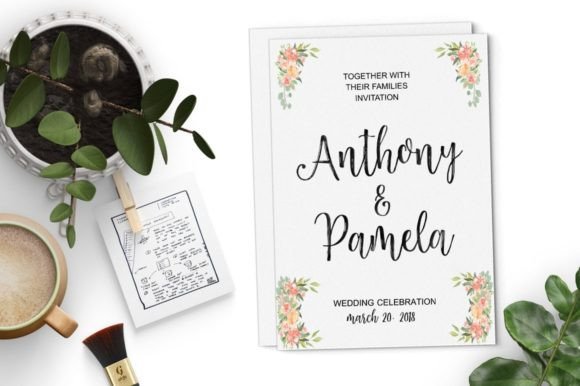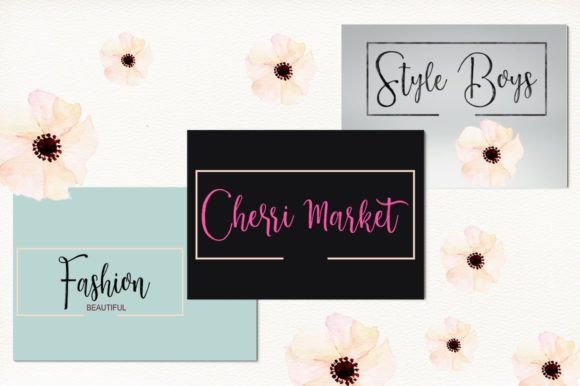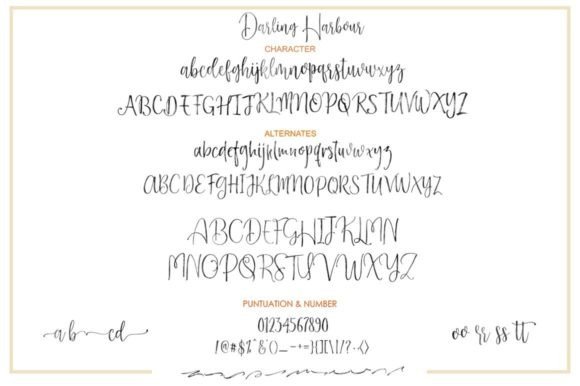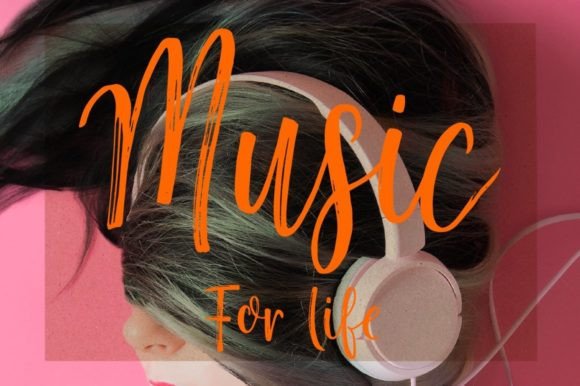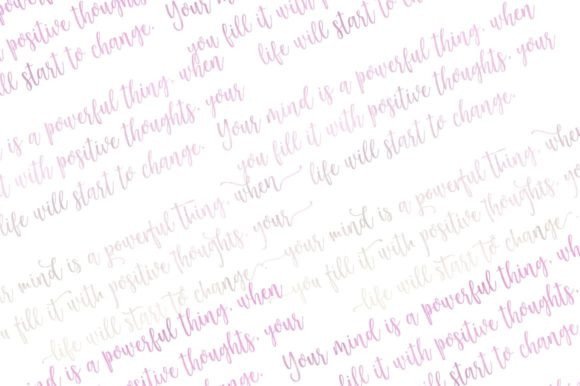
Introducing Darling Harbour Font: The Perfect Handwritten Brush Font for Your Designs
Are you looking for a stylish and cool handwritten brush font to elevate your designs? Look no further than Darling Harbour Font! This beautiful font is perfect for adding a charming handwritten touch to a variety of projects, from wedding invitations and thank you cards to quotes, greeting cards, logos, business cards, and more.
What Makes Darling Harbour Font So Special?
Darling Harbour Font is a stylish and modern handwritten brush font that is sure to impress. Its unique and elegant lettering style makes it perfect for a wide range of design projects, from formal events to casual crafts. The font’s beautiful brush strokes and subtle imperfections give it a personal and handcrafted feel that is sure to add a touch of warmth and personality to your designs.
Darling Harbour Font is an excellent choice for wedding invitations, save the dates, and other event-related designs. Its elegant and sophisticated style makes it perfect for formal events, while its playful and whimsical feel also makes it suitable for more casual gatherings. Whether you’re designing a wedding invitation, a baby shower card, or a graduation announcement, Darling Harbour Font is sure to add a touch of class and sophistication.
Ideal for Crafters and Designers
Darling Harbour Font is not just limited to professional designers – it’s also perfect for crafters and DIY enthusiasts. Whether you’re creating handmade cards, scrapbooking pages, or other paper crafts, this font is sure to add a personal and creative touch. With Darling Harbour Font, you can create beautiful and unique designs that are sure to stand out from the crowd.
Key Features of Darling Harbour Font
• Handwritten brush font: Darling Harbour Font is a genuine handwritten brush font, complete with subtle imperfections and beautiful brush strokes.
• Stylish and modern: This font is perfect for designers and crafters who want to add a touch of style and sophistication to their projects.
• Versatile: Darling Harbour Font can be used for a wide range of design projects, from formal events to casual crafts.
Need some inspiration for your designs? Here are a few tips and ideas to get you started:
• Pair with images: Darling Harbour Font looks beautiful paired with images, such as photos or illustrations.
• Use on colored backgrounds: This font looks great on colored backgrounds, adding an extra pop of color to your designs.
• Experiment with sizes and styles: Don’t be afraid to experiment with different sizes and styles of the font to add visual interest to your designs.
Darling Harbour Font is a beautiful and stylish handwritten brush font that is perfect for adding a charming touch to your designs. With its elegant lettering style, subtle imperfections, and versatile design, this font is sure to become a favorite among designers and crafters. Whether you’re creating wedding invitations, handmade cards, or other paper crafts, Darling Harbour Font is the perfect choice.